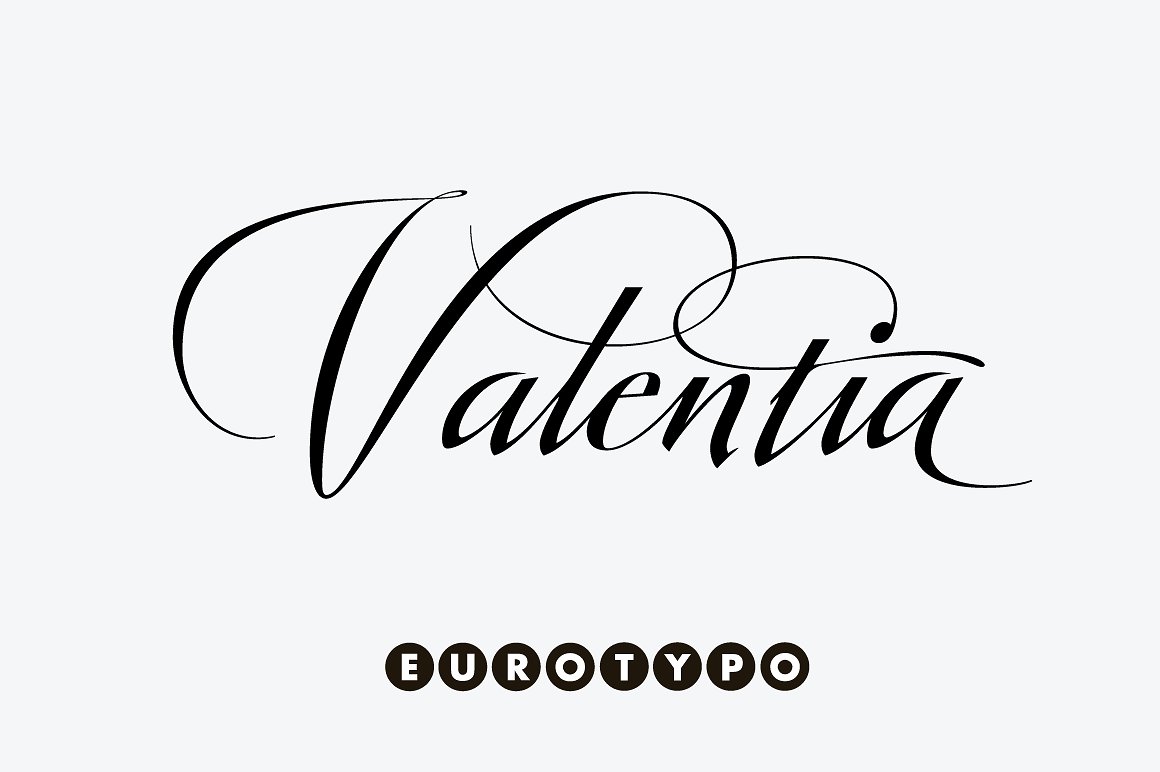
Valentia Script
Valentia Script Font
Valentia is an elegant font, casual and readable, this new script typeface is based on Copperplate style. Valentia has been drawn with spontaneous strokes and slightly contrasting thicknesses.The capital letters are full of expressiveness, with very dynamic “ductus” and linked ends, which allow to decorating with subtle and finishing touch. Contains small caps and titling. Decoration variables with its own terminal forms and initial forms. You can use Standard and discretionary ligatures, swashes, stylistic and contextual alternate, old style figures, CE languages and ornaments.